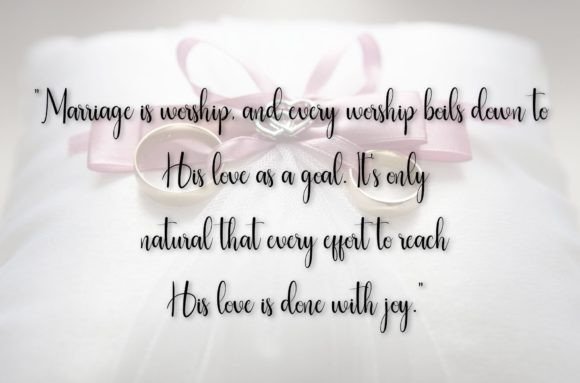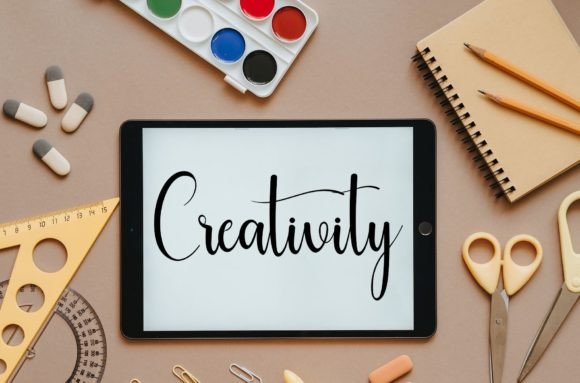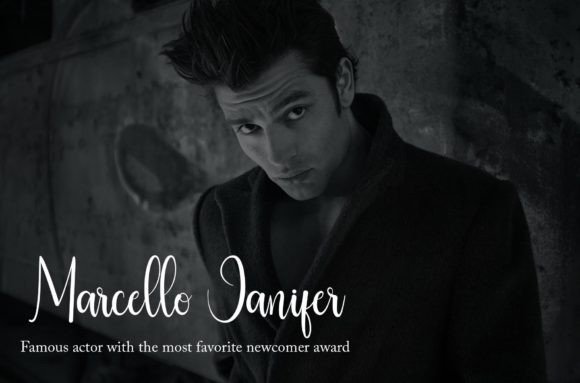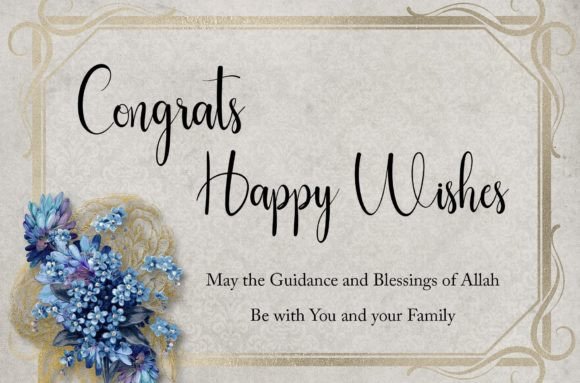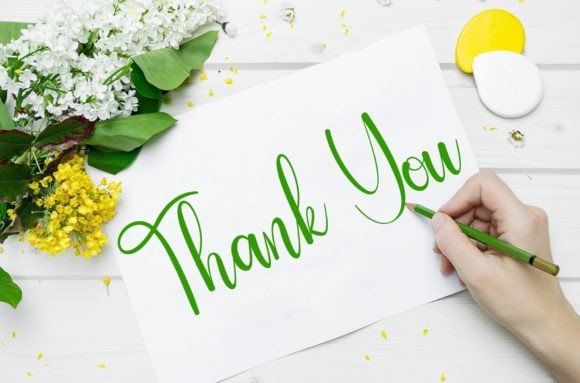
Guitar Font
About Guitar Font
“Guitar” is a romantic and sweet calligraphy script font that exudes elegance and charm. The characters in this font appear to dance along the baseline, creating a sense of movement and grace. This font is crafted to add a luxurious spark to any creative design or project you wish to develop.
The romantic and sweet qualities of “Guitar” make it an ideal choice for various design applications. Imagine using it on wedding invitations, where its calligraphic script enhances the romantic atmosphere of the celebration. Picture it on greeting cards, adding a touch of luxury to your heartfelt messages.
The dancing baseline and luxurious spark of “Guitar” contribute to its uniqueness and versatility. Whether you’re working on branding materials, stationery, or any other creative project, this font is designed to bring a sense of sophistication and charm.
As you incorporate “Guitar” into your design projects, let its romantic and sweet calligraphy be the key element that elevates your work. Whether you’re creating logos, branding materials, or any other design, “Guitar” invites you to infuse your projects with a luxurious spark, ensuring that your creations stand out with elegance and beauty.